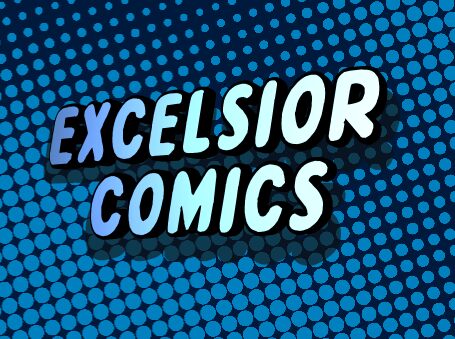
Excelsior Comics from Iconian Fonts is a free comic display font with tall, rounded capitals and a dense, hand-drawn silhouette. The uneven widths keep the lettering lively and informal.
It is especially suited to comic covers, where the swollen strokes and soft corners can supply an exuberant title, and it also fits children's posters and game graphics. On snack packaging or novelty merchandise, the letters can become part of a cartoon badge or illustrated sign rather than serving as neutral text.
Excelsior Comics